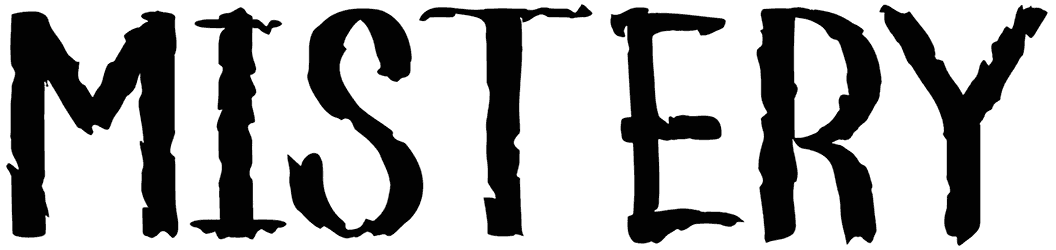
Mistery Font
Show your creativity with our new horror font, Mistery, with bold, ragged characters, making it a great choice not only for Halloween events but also for those projects that need a vintage theme. You can use this font for movie posters, book covers, product packaging, apparel printing, and other scary displays.
Mistery is a thrilling dark font.